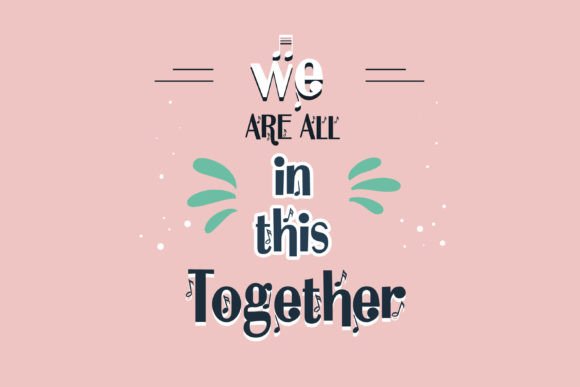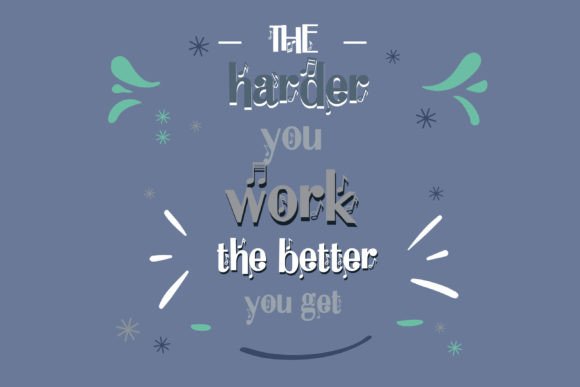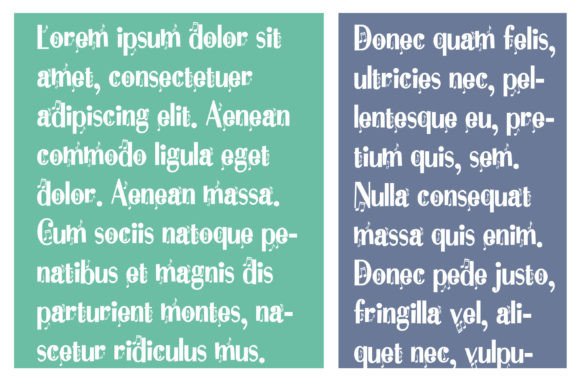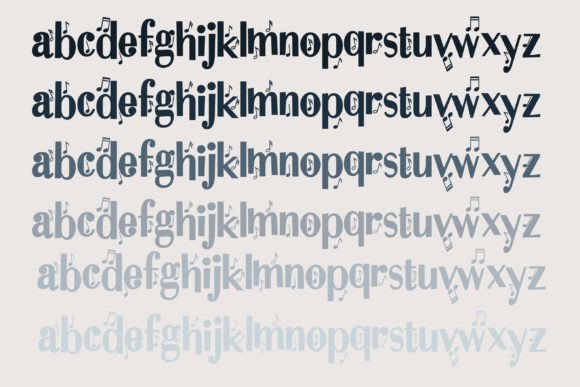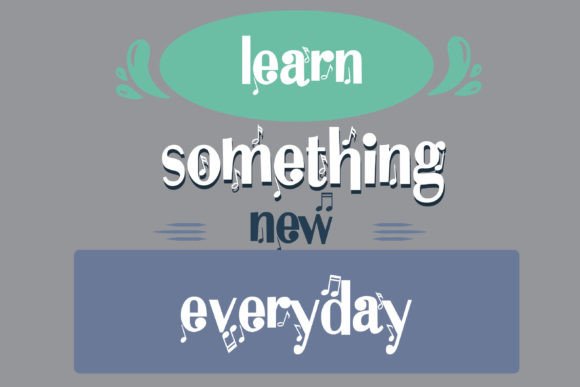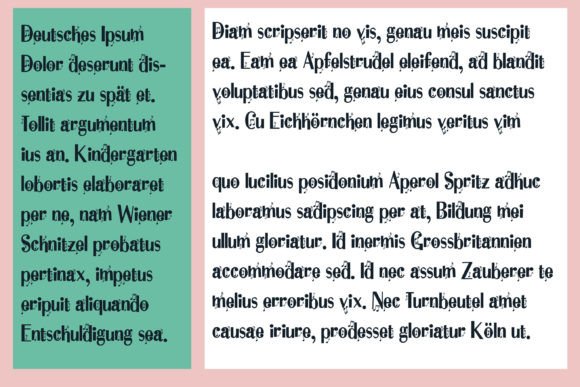
Introduction to Melody Maker Font
Have you ever stared at a blank page, waiting for that elusive spark of inspiration to strike? That’s exactly what happened to me when I stumbled upon the Melody Maker Font. As a designer, I was immediately drawn to its playful, bouncy aesthetic – a perfect blend of fun and sophistication.
What really sets the Melody Maker Font apart, however, is its unique feature: musical notes woven throughout the design. It’s a creative project’s dream come true – a design resource that’s both visually striking and easy to use. Whether you’re working on a project with a transparent background or need a high-quality font for your next design, the Melody Maker Font is a valuable addition to any designer’s toolkit.
Key Features of Melody Maker Font
- High-quality design resource ideal for creative projects, offering a unique and playful aesthetic.
- Designed with a bold and eye-catching style, making it perfect for headings, titles, and other prominent text elements.
- Resolution-independent, ensuring crisp and clear text at any scale or resolution.
Honest Review: Melody Maker Font
I recently came across the Melody Maker Font and I must say it’s a great addition to my design resource collection. This free download has been a game-changer for my creative projects, providing a unique and high-quality font that adds a touch of elegance.
- ✨ Unique design that stands out from the crowd: The Melody Maker Font has a distinctive style that sets it apart from other fonts, making it perfect for designers looking to add some flair to their work.
- ✨ High-quality design: The font is well-crafted and has a professional finish, making it suitable for a wide range of creative projects.
- ✨ Transparent background: This feature allows designers to easily use the font on any background, giving them complete control over the design.
- ⚠️ Limited character set: The font may not have a comprehensive character set, which could be a problem for designers working on projects that require a wide range of characters.
- ⚠️ Not ideal for small text: The font may not be the best choice for small text, as the design can become distorted at smaller sizes.
Overall, I’m impressed with the Melody Maker Font and would recommend it to designers looking for a high-quality, unique font to add to their design resource collection.
Melody Maker Font
The Melody Maker Font is a high-quality, free design resource perfect for creative projects. Its transparent background and elegant design make it a great addition to any project.
Tips for Getting the Most Out of Melody Maker Font
To get the most out of the Melody Maker Font, experiment with different font sizes and colors to create a visually appealing design. You can also use the font in combination with other design elements to create a unique look.
The Melody Maker Font is perfect for creating invitations, social media graphics, and other design projects that require a touch of elegance and sophistication. Its transparent background makes it easy to use in combination with other design elements.